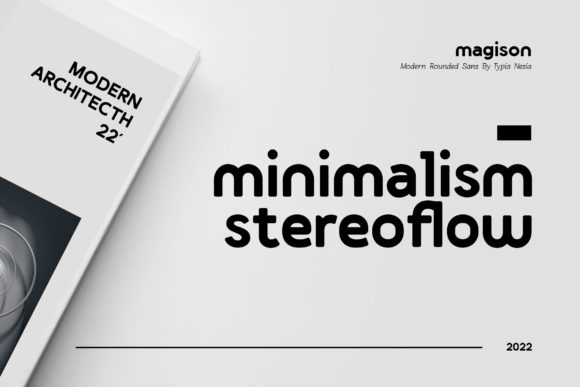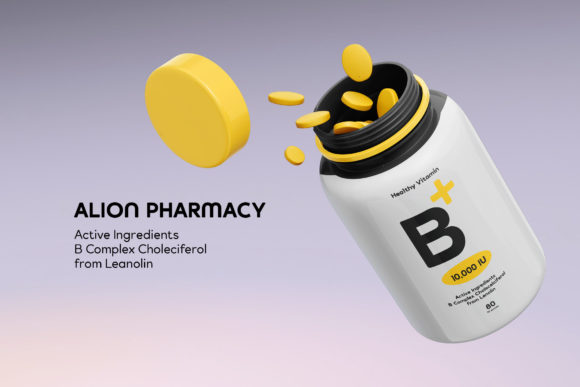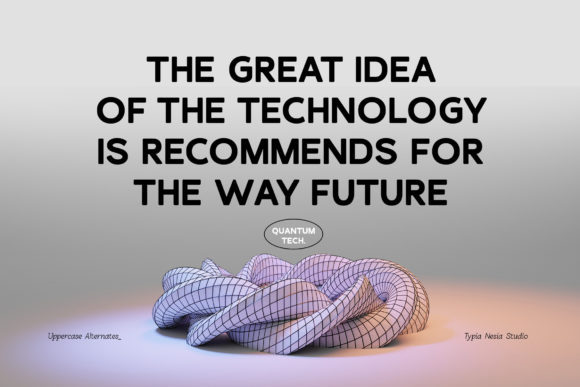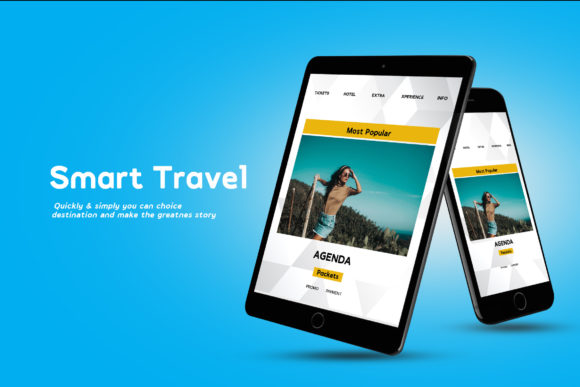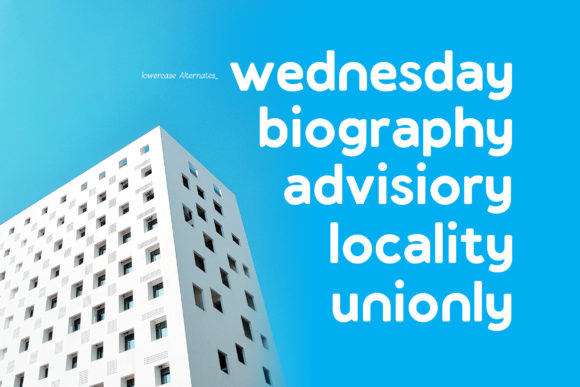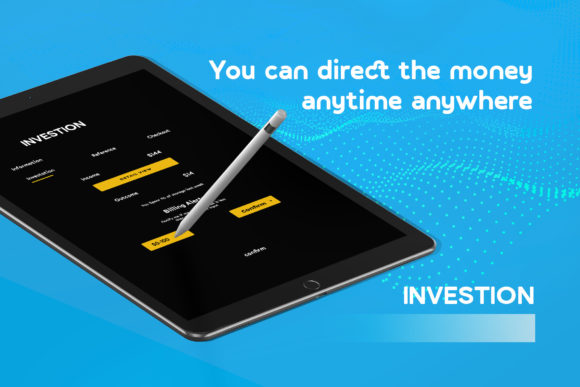
Introduction to Magison Font
Have you ever stared at a blank canvas, itching to bring a new idea to life, only to be stumped by the perfect font? That’s exactly where the Magison Font comes in – a modern, rounded bold sans serif font designed to elevate your creative projects and leave a lasting impression.
As a designer, you know the importance of having a high-quality design resource at your fingertips. With Magison Font, you can take your projects to the next level with a font that’s perfect for a wide range of applications, from logo branding and editorial design to digital music posters and app startup design.
Key Features of Magison Font
- High-quality design resource with a unique, creative style suitable for various projects, including logos, branding, and creative projects.
- Magison Font features a transparent background, making it easy to use in various design contexts and backgrounds.
- Includes a wide range of characters, including uppercase and lowercase letters, numbers, and special characters, making it a versatile design resource.
- Designed to be a high-quality design resource for creative projects, including logos, branding, and other visual materials.
Honest Review: Magison Font
I recently had the chance to work with the Magison Font on a creative project and I was impressed with the results. This font has a unique, elegant style that works well for a variety of designs, from modern logos to traditional posters.
Here are some of the things that I liked about the Magison Font:
- ✨ High quality: The font is well-designed and looks great on both digital and print materials.
- ✨ Transparent background: This feature allows for easy editing and customization, making it a valuable resource for designers.
- ⚠️ Limited language support: The font only includes a limited number of languages, which may be a problem for designers working on international projects.
- ⚠️ Not suitable for all designs: While the font is versatile, it may not be the best choice for certain types of projects, such as children’s books or academic papers.
Overall, I was impressed with the Magison Font and would recommend it to designers looking for a high-quality, free design resource. With a little creativity, this font can help bring your designs to life.
The Magison Font is a high-quality design resource that can be used in a variety of creative projects. With its unique style and transparent background, it’s perfect for designers who want to add a touch of elegance to their work.
Tips for Getting the Most Out of Magison Font
To get the most out of Magison Font, try using it in combination with other design elements, such as graphics and images. You can also experiment with different font sizes and styles to create a unique look.
Common Use Cases for Magison Font
The Magison Font is commonly used in a variety of creative projects, including wedding invitations, business cards, and marketing materials. It’s also a great choice for designers who want to create high-quality graphics and text elements for free download.